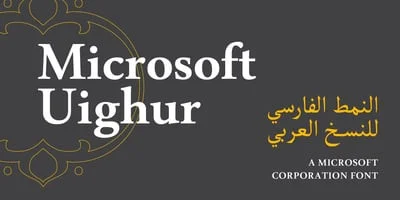
Microsoft Uighur Font
Microsoft Uighur Font is a specialized and culturally significant typeface, primarily designed to support the Uighur script, which is crucial for digital communication and publishing in the Uighur language. While its primary function is to render text accurately for this specific script, it also plays a vital role in enabling global communication and cultural preservation. Imagine it essential for academic research on Uighur language and culture, digital and print publications for Uighur-speaking communities, software interfaces requiring Uighur script support, educational materials, and cultural heritage projects. This font excels in environments where linguistic accuracy, cultural representation, and clear readability are paramount, ensuring that content in Uighur is accessible and faithfully displayed across various digital platforms.
What makes Microsoft Uighur Font truly exciting is its critical role in bridging linguistic and cultural divides in the digital realm. It provides a standardized and accessible way to present the Uighur script, which might otherwise face challenges in consistent rendering across different systems. This font isn't just about displaying characters; it's about facilitating communication, preserving cultural identity, and ensuring that a unique language thrives in the modern digital age. It has a powerful ability to feel both functionally precise and culturally vital, making it an invaluable tool for global communication efforts and specialized linguistic applications. Microsoft Uighur Font empowers users and organizations to engage with and support Uighur language content with confidence and accuracy.
The Microsoft Uighur Font family, given its specialized nature, typically focuses on providing comprehensive support for the Uighur script. This usually includes a regular weight designed for optimal readability, ensuring all Uighur characters, diacritics, and ligatures are rendered correctly. While it may not feature an extensive range of Western-style weights (like light or bold), its primary strength lies in its meticulous adherence to the nuances of the Uighur writing system. Its character set is extensive for Uighur script, along with supporting necessary Latin characters and punctuation, ensuring that Microsoft Uighur Font is a robust solution for specific linguistic requirements in digital environments.